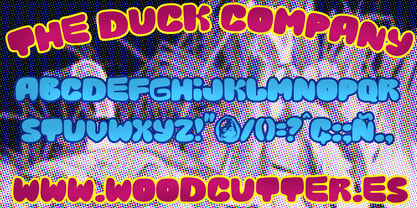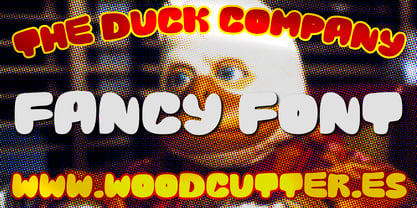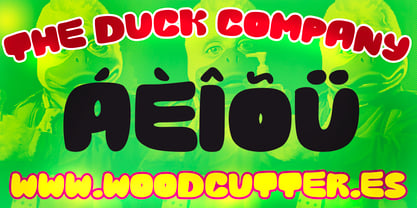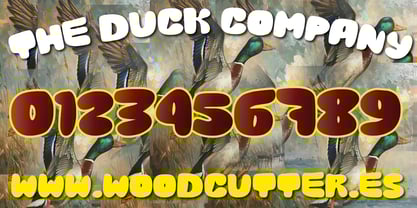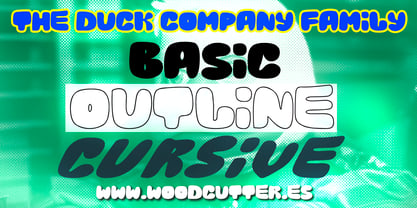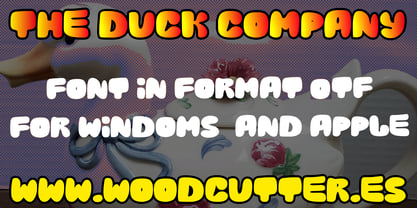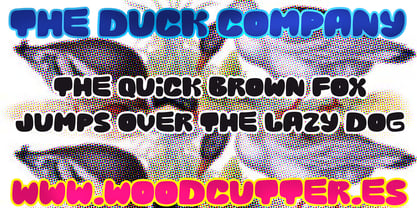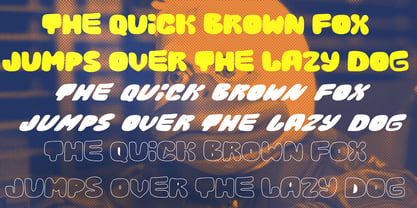
The Duck Company
by Woodcutter
The The Duck Company Font Family was designed by Jordi Manero and published by Woodcutter. The Duck Company contains 3 styles and family package options. More about this family
The "The Duck Company" typeface family is an uppercase font with accents, designed with a rounded, fun, and energetic style. Its informal aesthetic makes it perfect for projects with a friendly and playful tone. With thick strokes and smooth curves, it conveys a sense of dynamism and accessibility.
This family includes three versions:
"The Duck Company", the main version, with solid and bold letters, ideal for eye-catching headlines.
"The Duck Company Outline", a version with only the letter contours, adding lightness and versatility to combine with the solid version.
"The Duck Company Cursive", the slanted variant, adding fluidity and motion to the design.
With its versatile and expressive character, this typeface is perfect for logos, posters, packaging, and any design that seeks to capture attention in a fun and vibrant way.